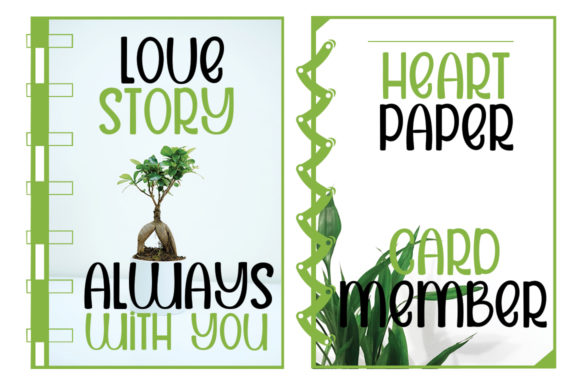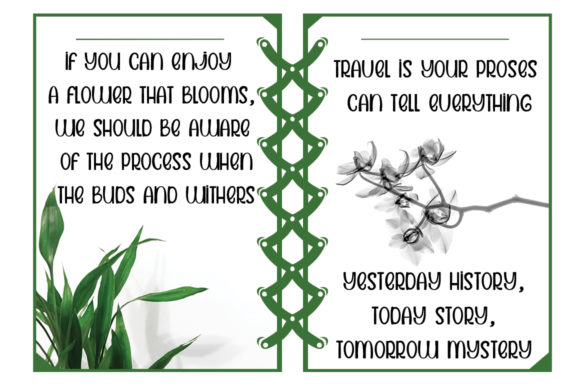
Paper Notebook Font
db-ku.com - Script & Handwritten -- Paper Notebook is a cute and casual handwritten font with an incredibly friendly feel. Whether you’re looking for fonts for Instagram or calligraphy scripts for DIY projects, this font will turn any creative idea into a true piece of art!